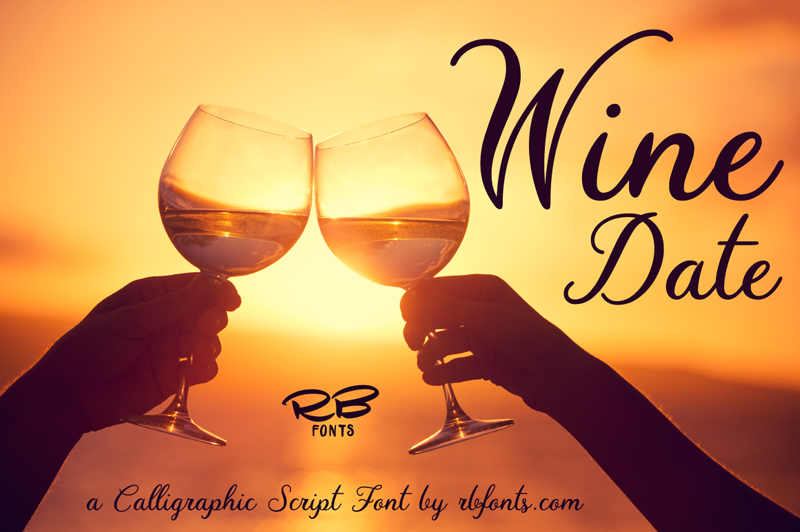
Wine Date is a cursive calligraphic script font without the swashes on the Uppercase letters and straight lowercase �p� and �f�. Nice choice for your creative projects such as * logos, * printed quotes, * invitations, * cards, * Instagram posts. Happy creating and have fun! Fonts are provided in TTF & OTF formats. I recommend installing the TTF files, and the OTF only if necessary. There is no difference between these two unless for printing ttf is better. You may not - sell these fonts or claim them as your own. - edit or rename these fonts. - redistribute these fonts. http://rbfonts.com rbfonts@yahoo.com |